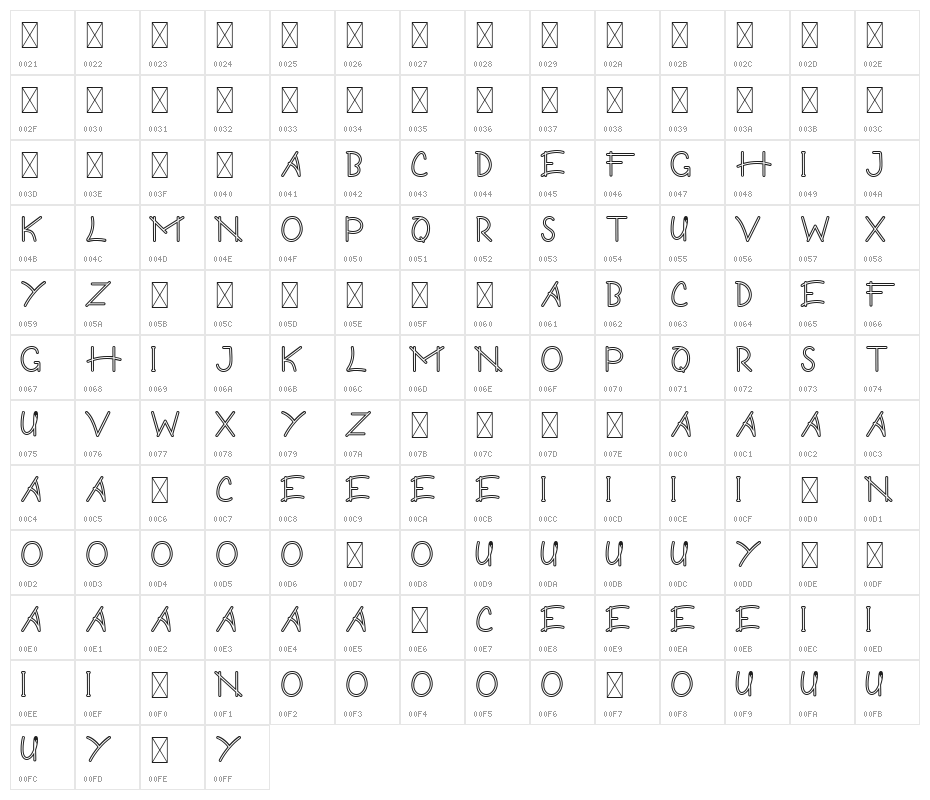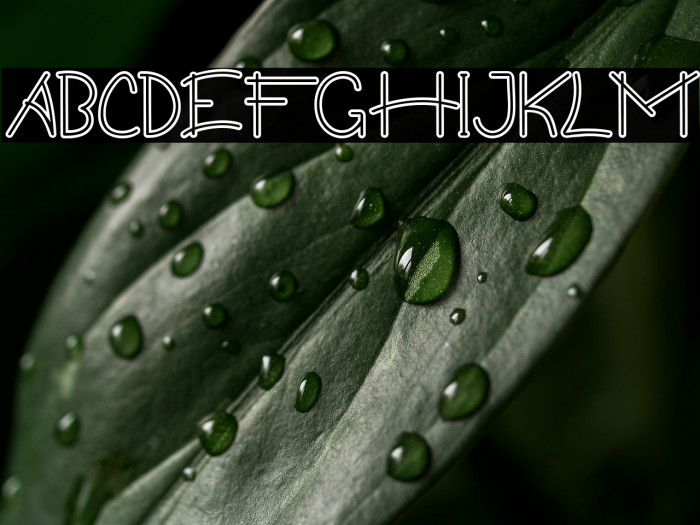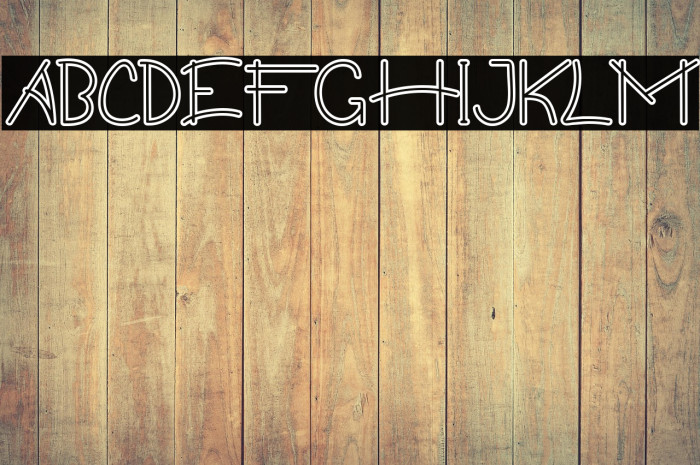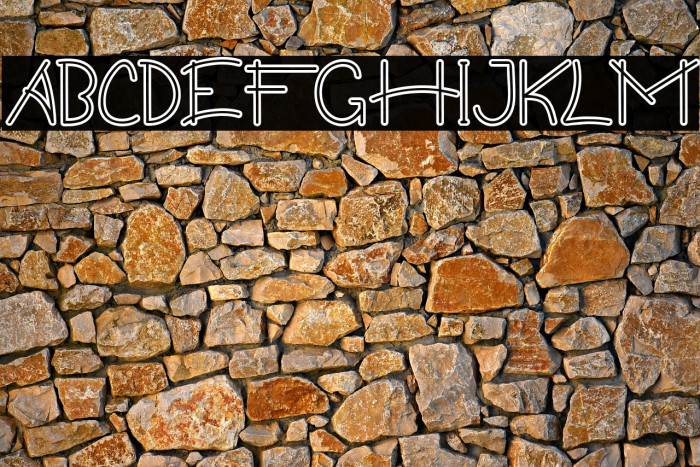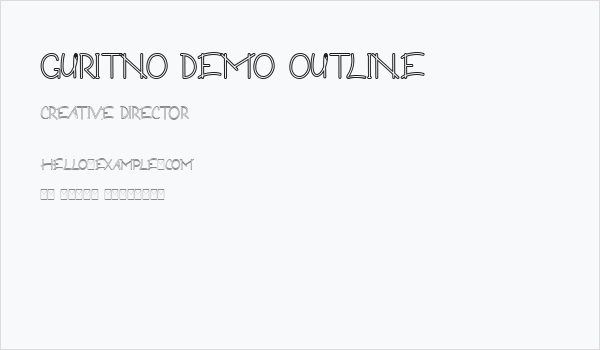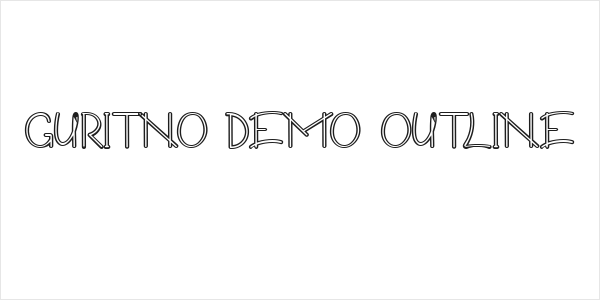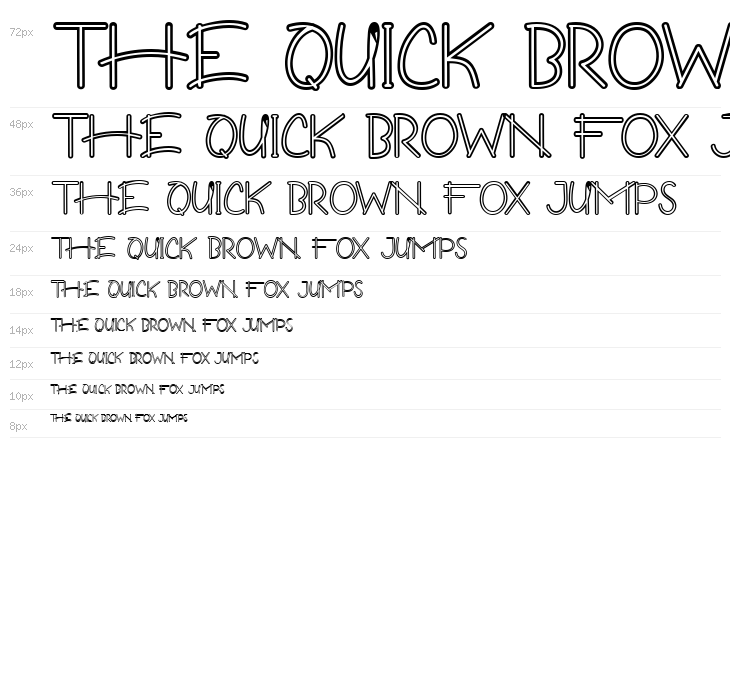
Guritno Demo Outline Font
Guritno Demo Outline Description
This font features a unique outline style with a playful and artistic flair. The characters are designed with a double-line structure, giving them a three-dimensional appearance. The strokes are consistent in width, creating a balanced and harmonious look. The uppercase and lowercase letters maintain a uniform height, contributing to a cohesive visual flow. The font's design is both modern and decorative, making it suitable for creative projects. Its distinct outline style adds a touch of elegance and sophistication, while the overall appearance remains approachable and friendly.
| Proposed Projects | Ideal for creative projects such as posters, invitations, and branding materials that require a distinctive and artistic touch. |